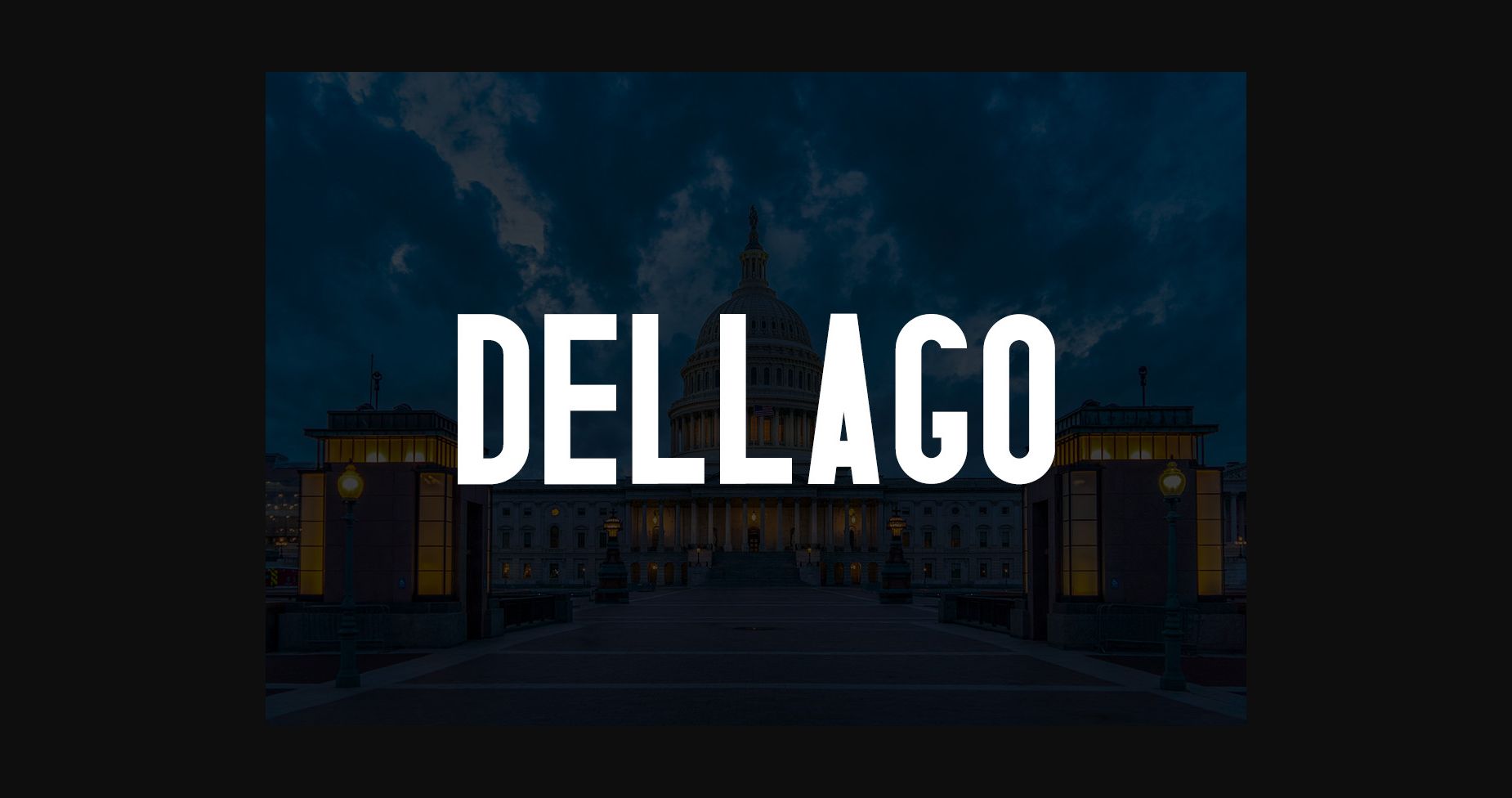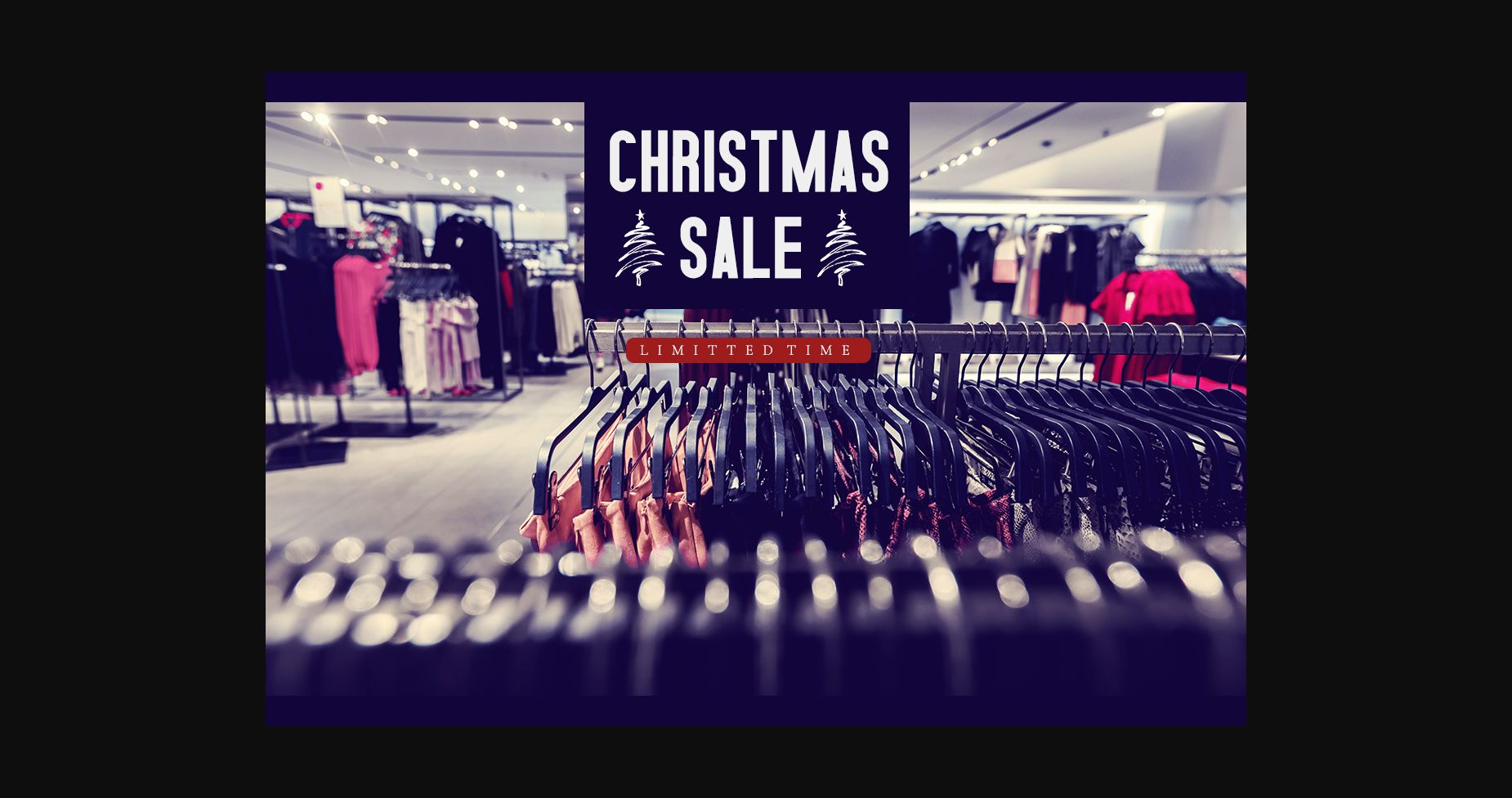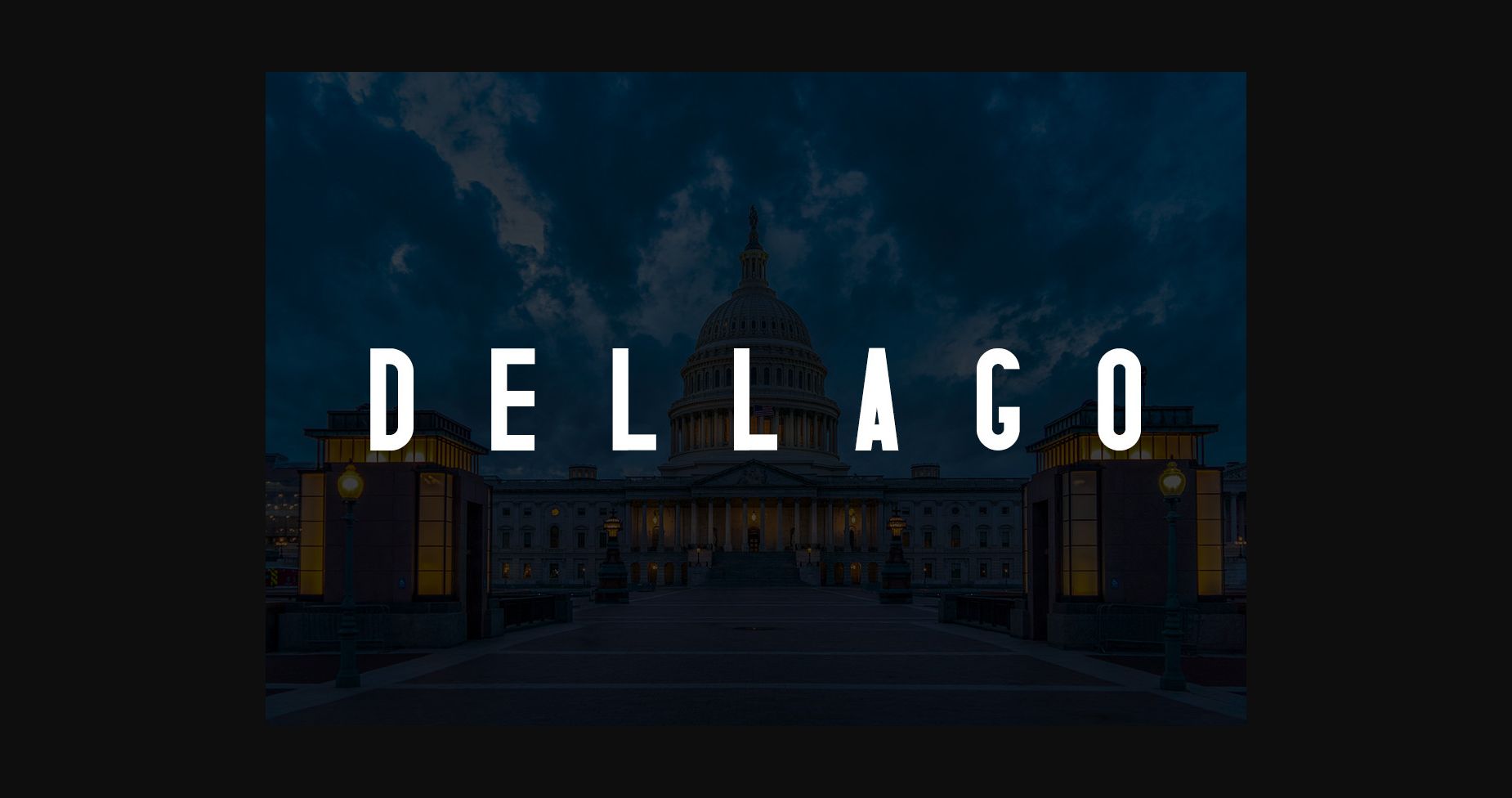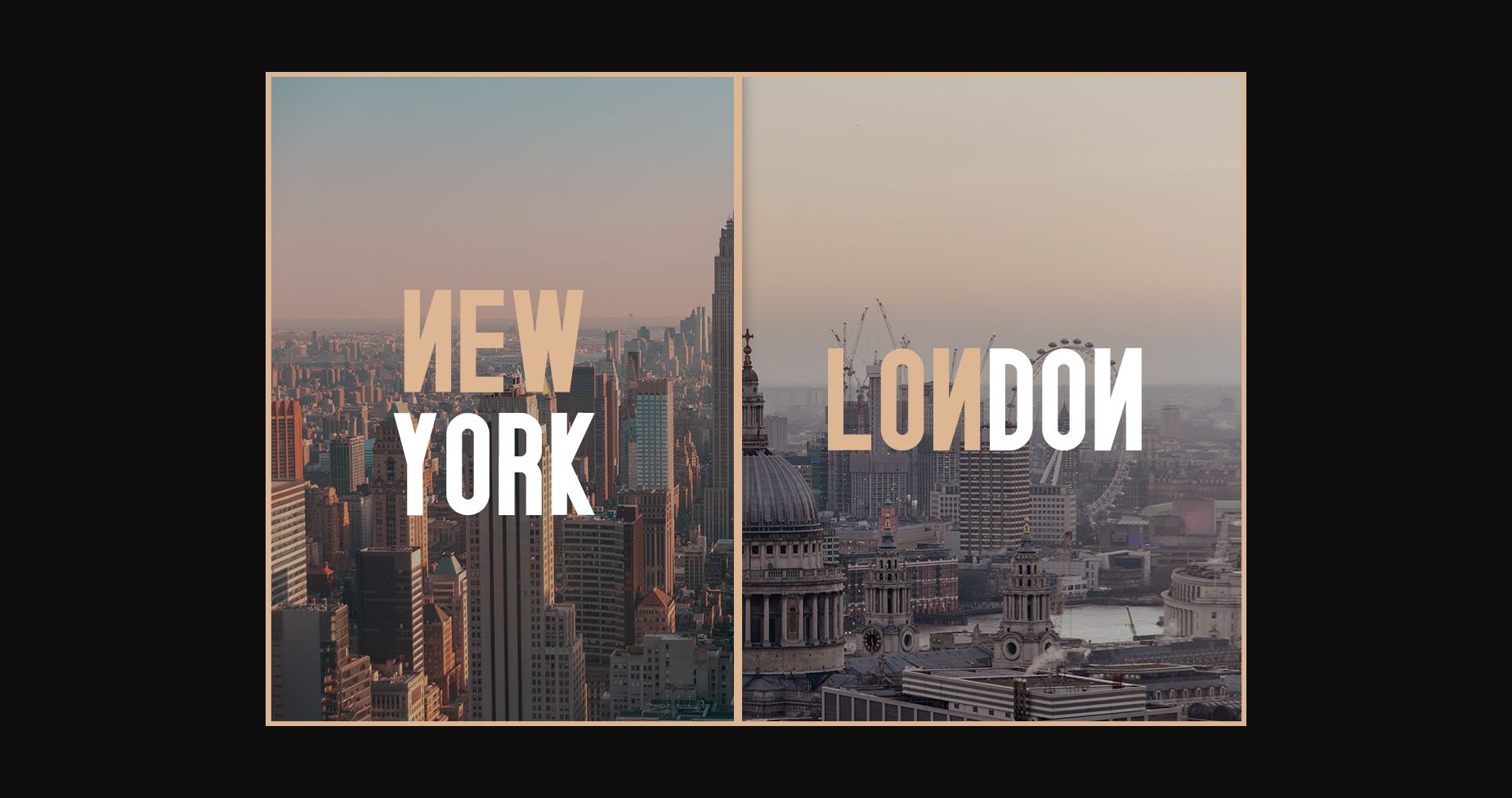
About Dellago Font
Dellago is a clean and neat sans serif font. It can easily be matched to an incredibly large set of projects, so add it to your creative ideas and notice how it makes them stand out!